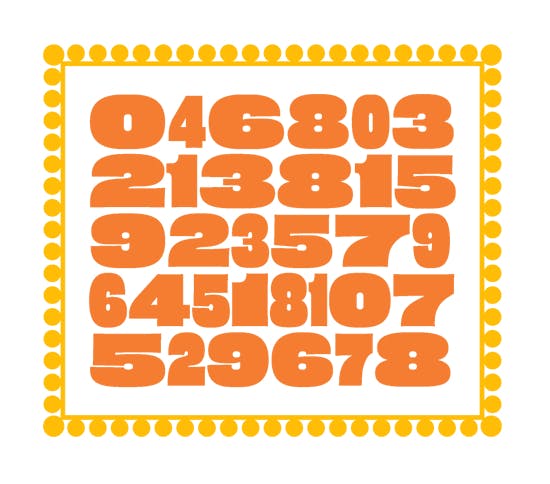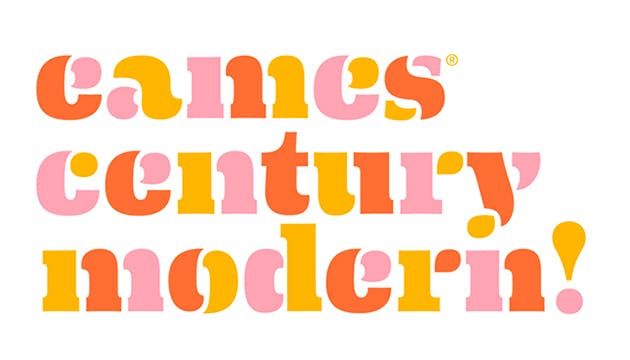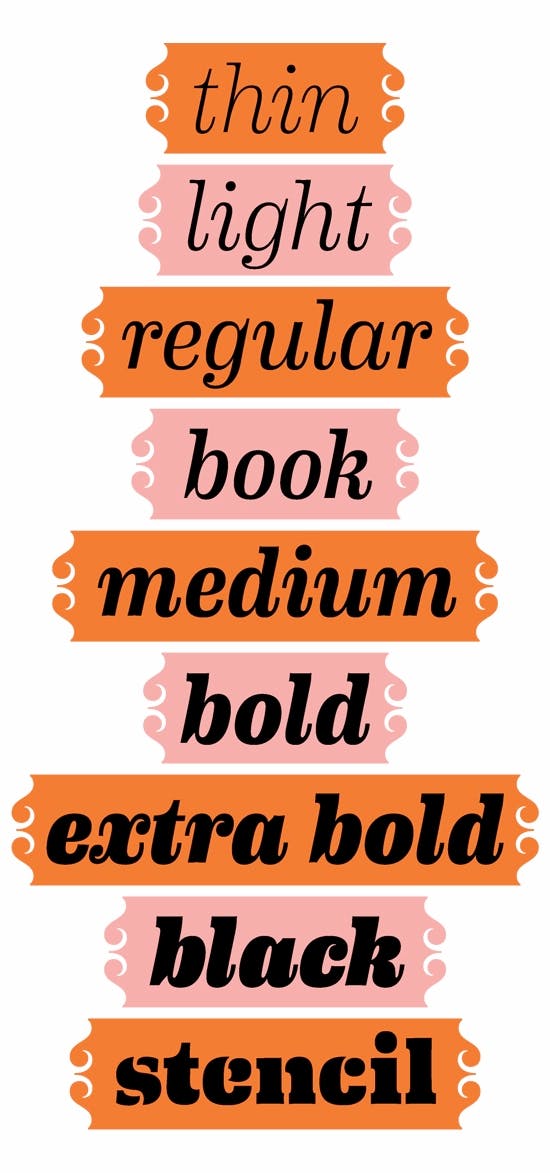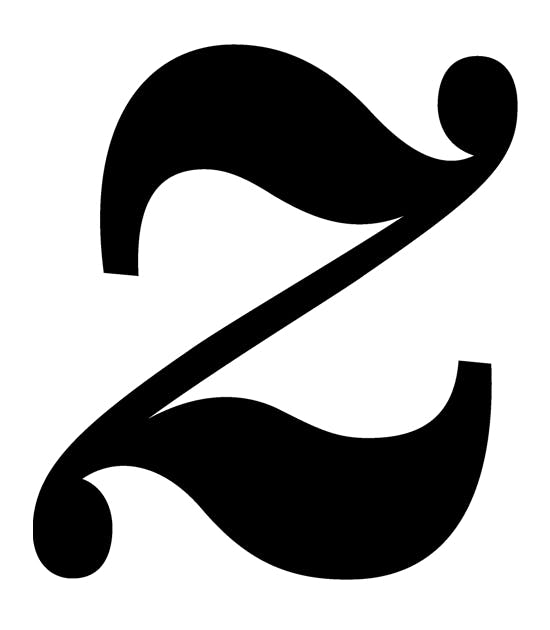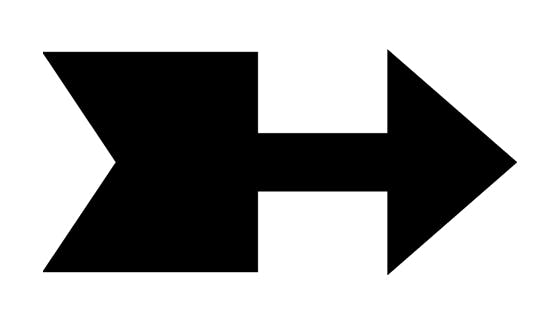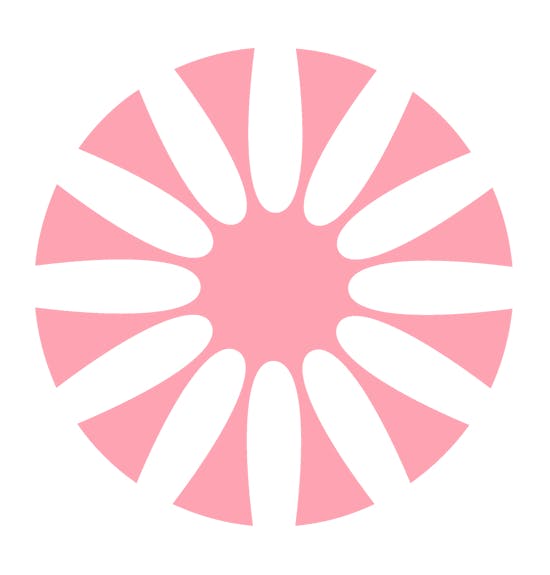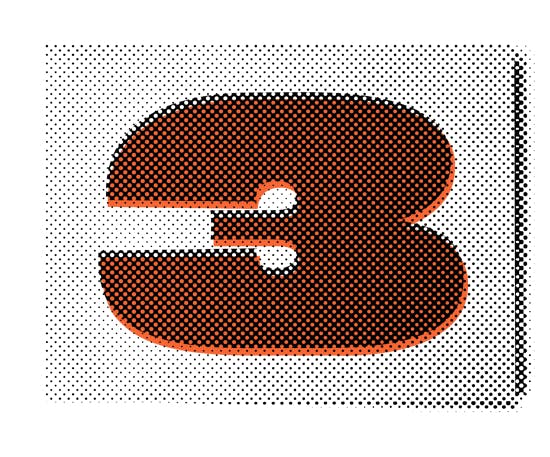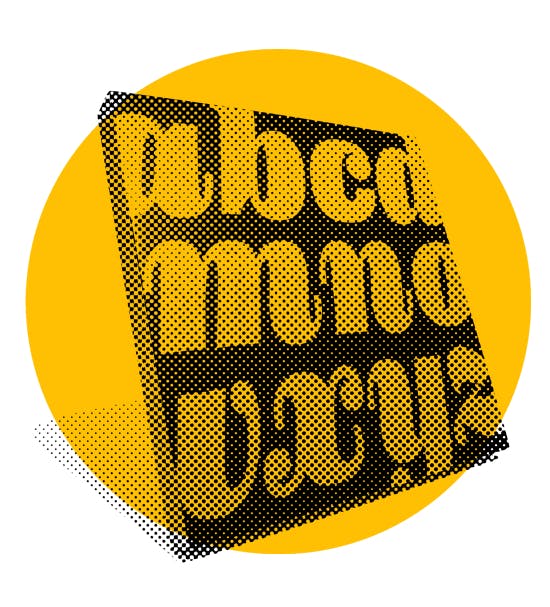
House Industries bring together some classic Eames imagery and Eames inspired typefaces in a new package available to buy now. Included - 26 fonts, 18-Style text family with italics, 9 Figure Styles, 4 Numeral Fonts as well as smart ornaments font. The number options look particularly authentic, the couples Arts and Architecture covers forming the basis of this more delicate set. 'Eames Century Modern is a typographic workhorse that honors the Eames aesthetic while offering unprecedented functionality.' More here and in the gallery